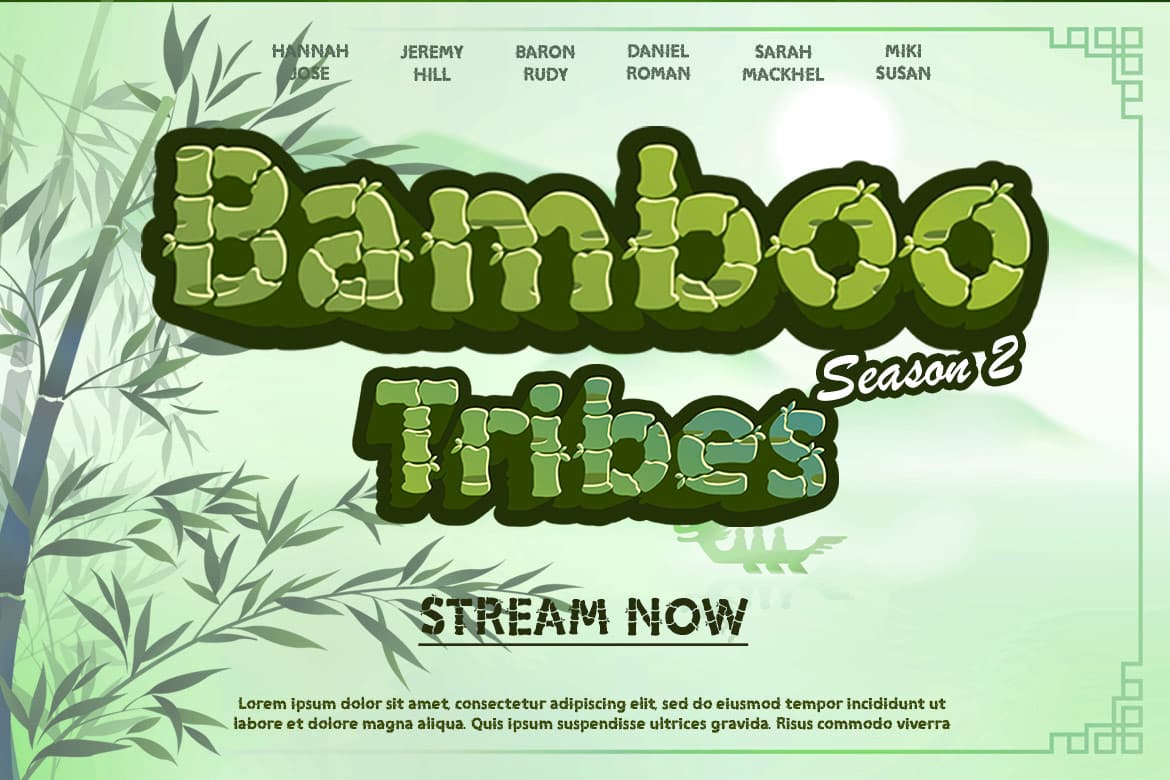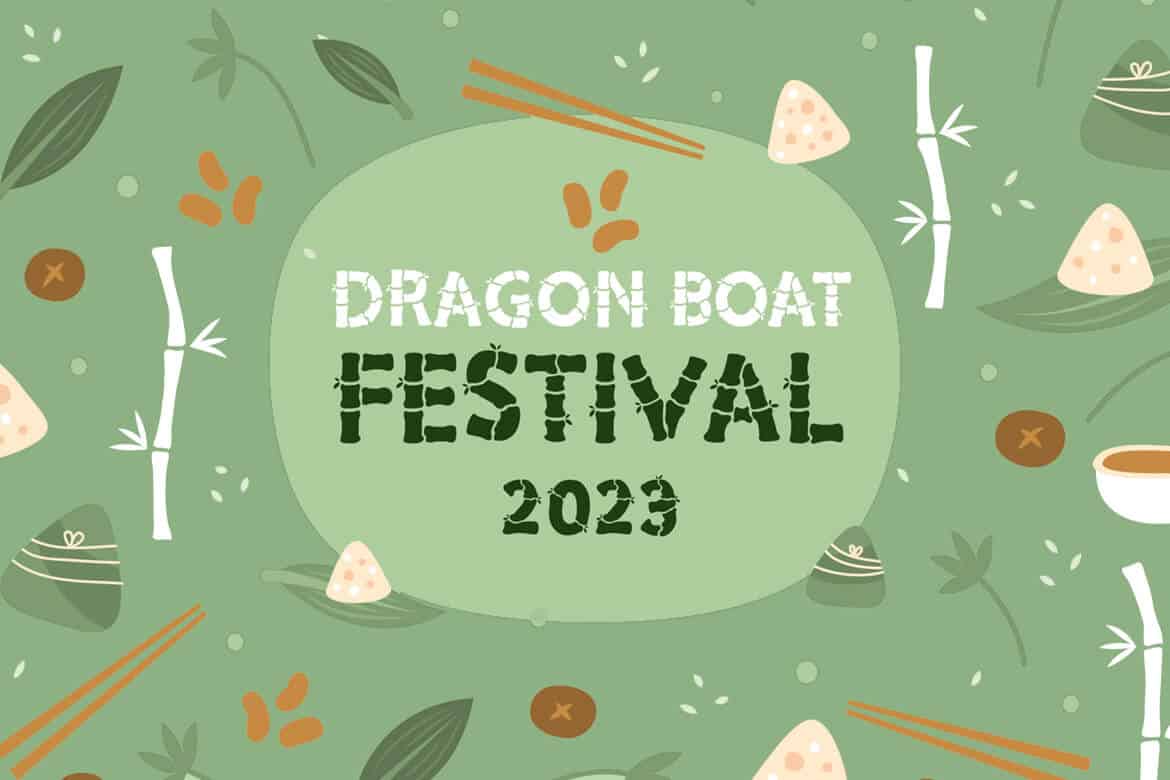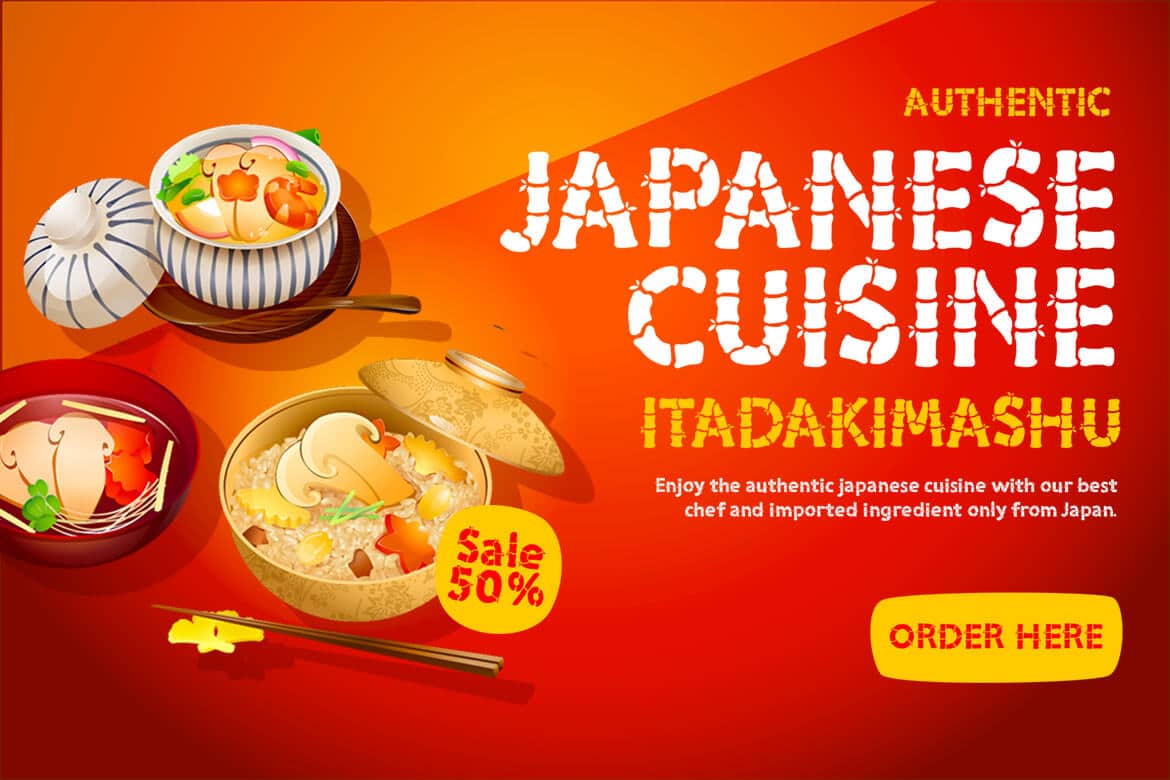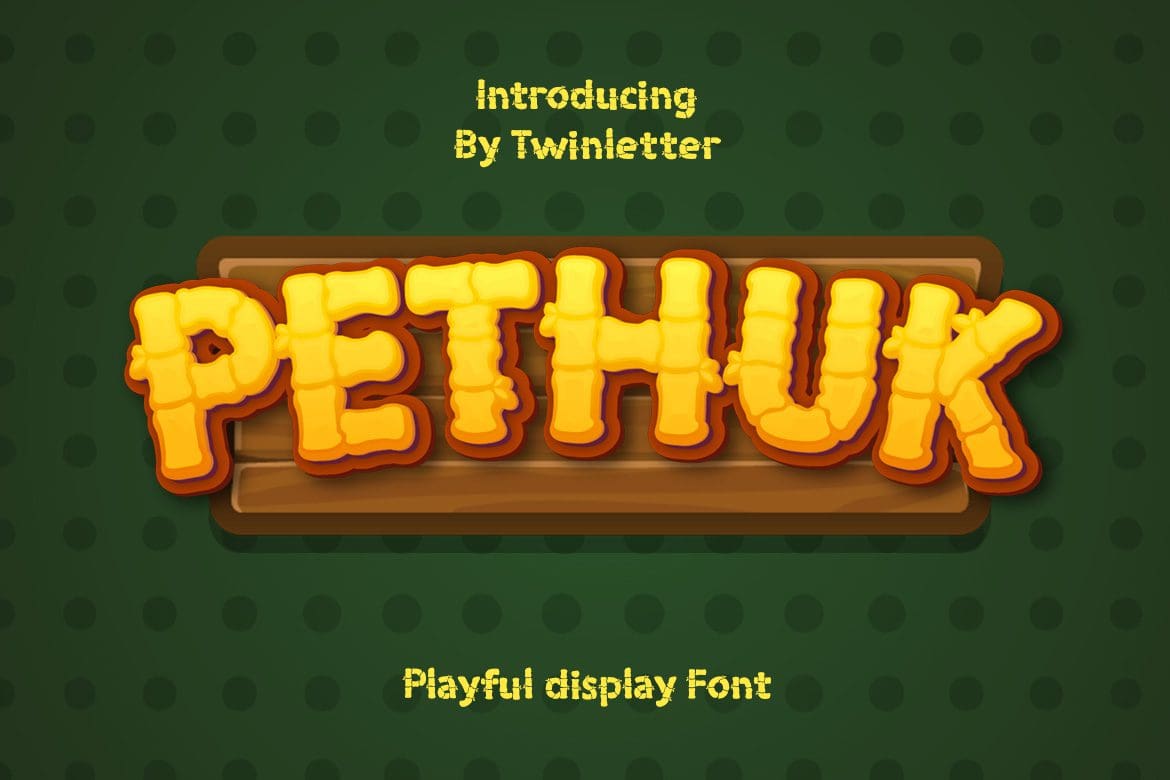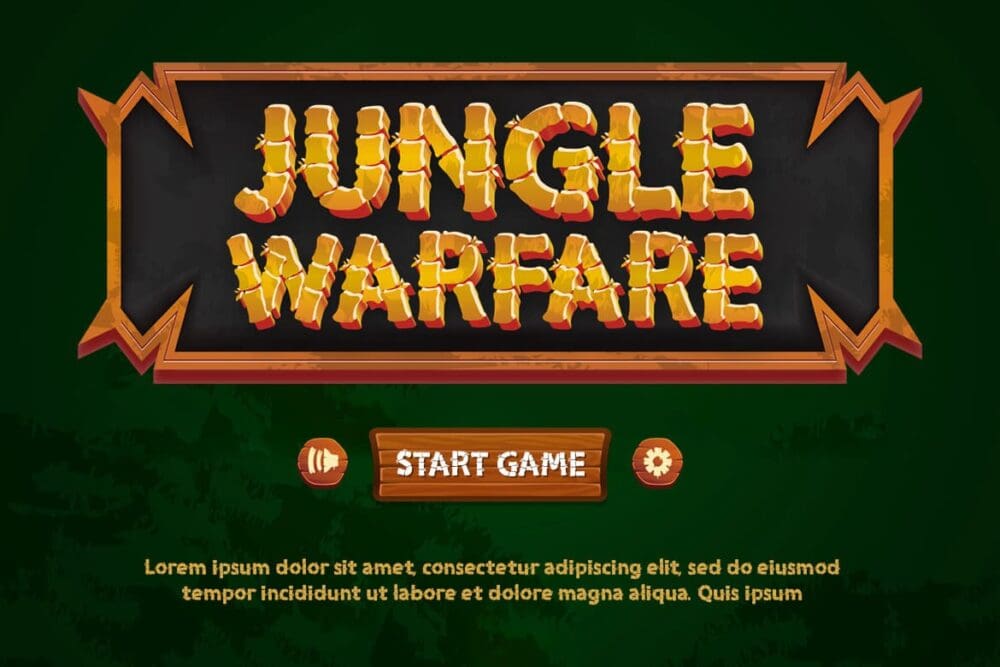
Pethuk Font
Pethuk is a bamboo-themed Display Font that was created with attention to provide a distinctive, elegant, and versatile font for your diverse project needs. This display typeface is a lot of fun; get it today to give your project a bombastic flair. This font is perfect for games, sporting events, branding, banners, posters, movie titles, book titles, quotes, logotypes, and more.